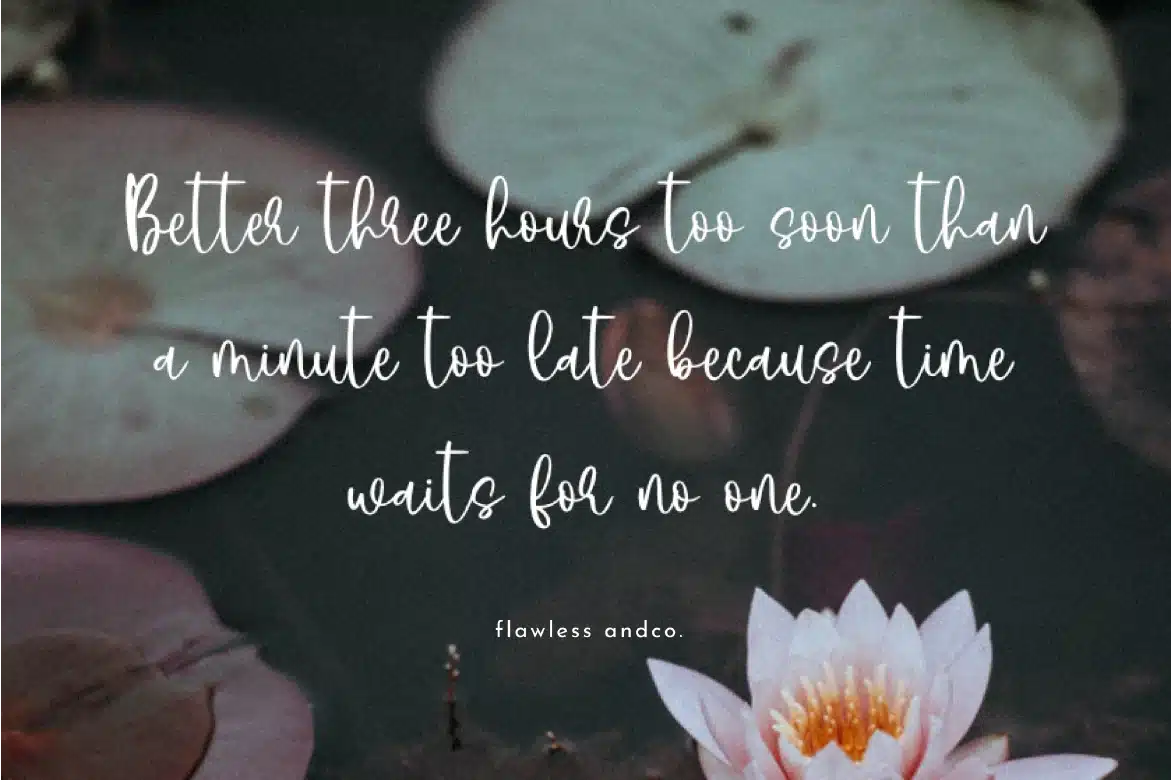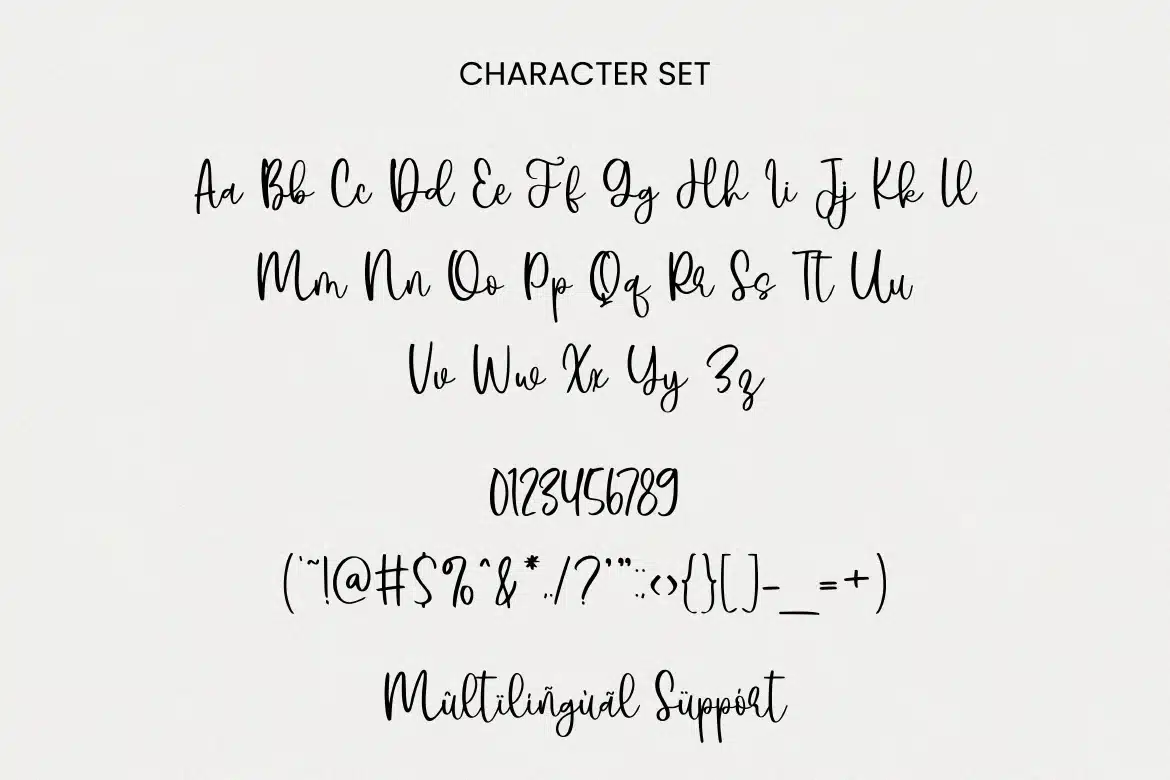
Hello Angela – Modern Script Font
Hello Angela is a handcrafted script, this style gives a feel of girly and modern. Suitable for any graphic designs such as branding materials, wedding invitations, print, business cards, logos, posters, photography, quotes, etc.
Multilingual
Uppercase alphabet A-Z
Lowercase alphabet a-z
Alternate Character
Numbers 0-9
Some punctuation